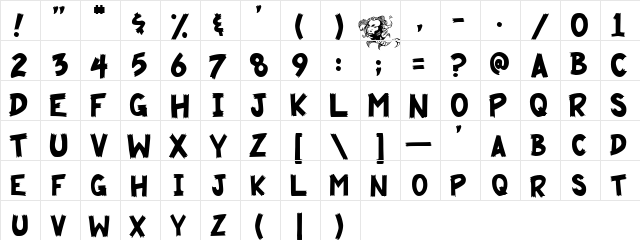
Cliffhanger Normal
Design Context for Cliffhanger Typeface
Cliffhanger is a composed and adaptable typeface that performs quietly and consistently across a wide range of design contexts.